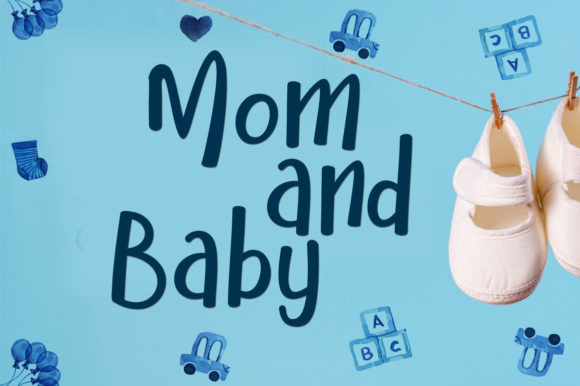
Welcome to the world of Mom and Baby Font, the enchanting script creation that captivates hearts with its romantic charm. Inspired by the tender moments between mother and child, this font evokes a profound connection that resonates with love, care, and boundless joy.
With its graceful curves and delicate strokes, Mom and Baby Font effortlessly allures your imagination into a world of profound affection and endearment. Each character dances on the page, as if whispering a cherished secret meant to warm your heart. Whether crafting a romantic novel, composing a heartfelt poem, or creating whimsical invitations for a cherished occasion, Mom and Baby Font will effortlessly transport you to a place where emotions run deep and love blooms.
Step into the enchanting world of Mom and Baby Font, where every letter is an ode to the strength of family, the magic of childhood, and the eternal bond between mother and child. Let this font ignite your creativity and captivate your audience, enchanting them with its timeless allure.